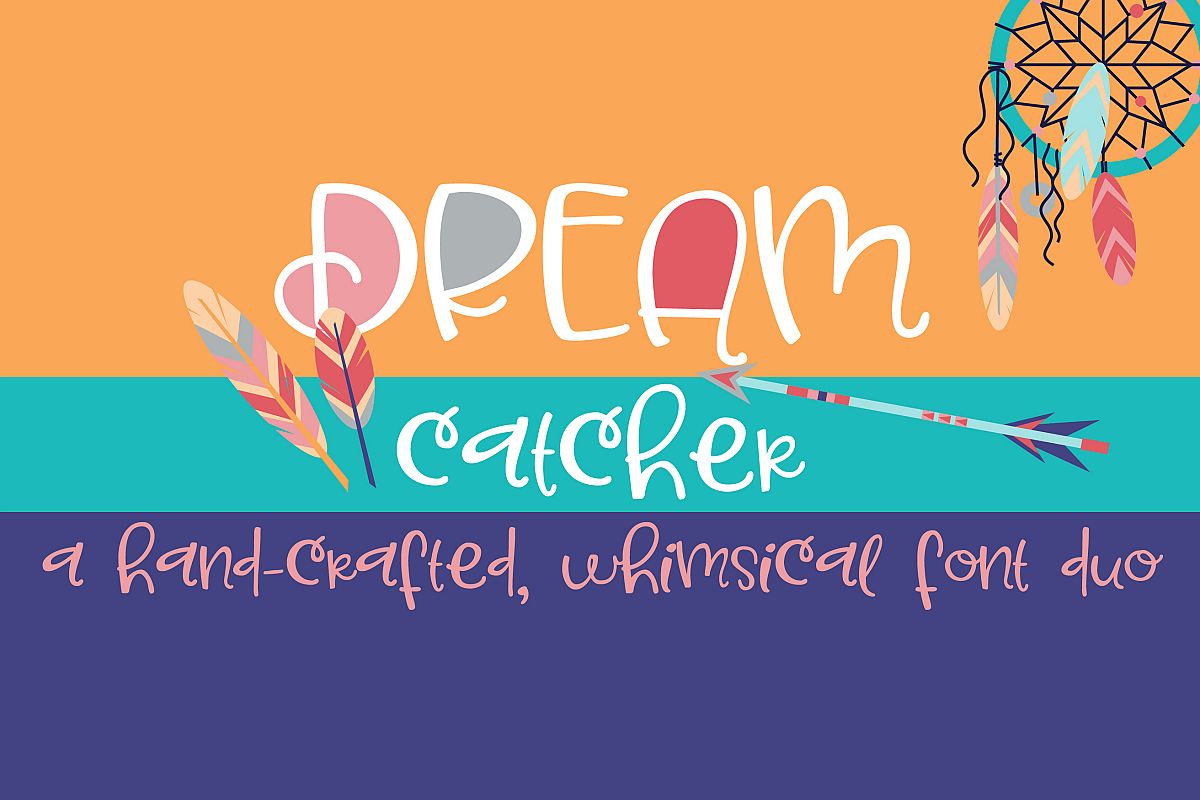
This whimsical, hand-crafted font is a font duo in one font. Use the uppercase alone for one look or combine with the quasi-script lowercase. Check out her sister font: PN Dream Culture, a cursive, hand-written script.